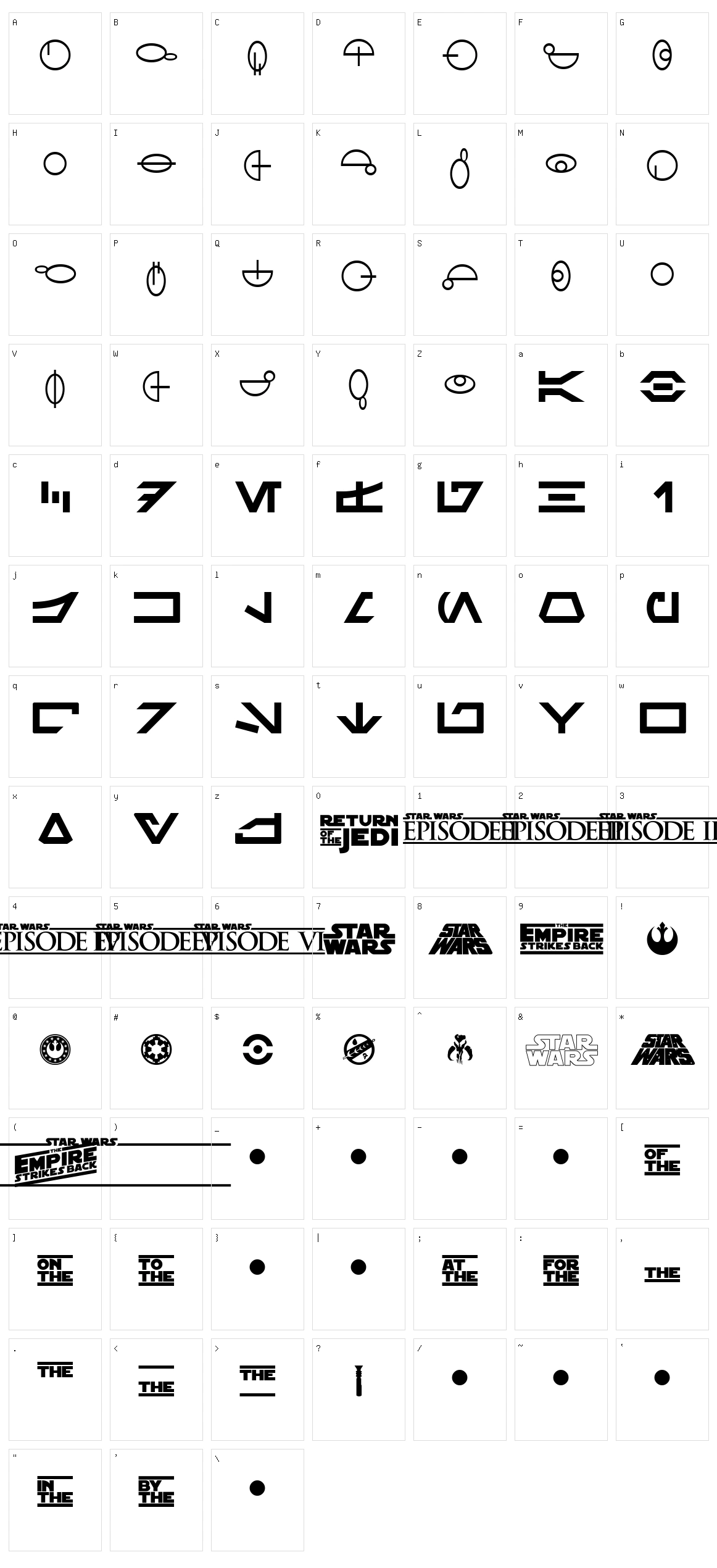
SF Distant Galaxy
- SF Distant Galaxy
- SF Distant Galaxy, Italic
- SF Distant Galaxy Alternate
- SF Distant Galaxy Alternate, Italic
- SF Distant Galaxy AltOutline
- SF Distant Galaxy AltOutline, Italic
- SF Distant Galaxy Outline
- SF Distant Galaxy Outline, Italic
- SF Distant Galaxy Symbols
- SF Distant Galaxy Symbols, Italic
SF Distant Galaxy - Version 2.5 - Updates
- Includes complete character set (lowercase and uppercase letters,
numbers, punctuation, and accented characters.)
- Includes Aurebesh alphabet, Naboo symbols, and various Star Wars
logos and insignias.
- Completely redesigned characters with improved spacing and kerning.
- Connecting Letters
- To connect any two characters use SF Distant Galaxy Alternate or
SF Distant Galaxy AltOutline. The first letter to be connected
should be a lowercase and the second should be an uppercase. For
example, type the following line using either SF Distant Galaxy or
SF Distant Galaxy AltOutline:
sTaR wArS
(note: SF Distant Galaxy and SF Distant Galaxy Outline characters
do not connect and are designed to work in conjunction with SF
Distant Galaxy Alternate and SF Distant Galaxy AltOutline)
- Adding Extensions Using SF Distant Galaxy Alternate
- To add extensions using SF Distant Galaxy Alternate, press < for
bottom extensions and > for top extensions. For example, type the
following line using SF Distant Galaxy Alternate:
>>TiE fIgHtEr<<
(note: SF Distant Galaxy does not have extensions)
- Adding Extensions Using SF Distant Galaxy AltOutline
- To add extensions using SF Distant Galaxy AltOutline, press < for
an open bottom extension, > for an open top extension, [ for a
closed bottom right extension, ] for a closed bottom left
extension, { for a closed top right extension, and } for a closed
top left extension. For example, type the following line using SF
Distant Galaxy AltOutline:
{>>TiE fIgHtEr<<]
(note: SF Distant Galaxy Outline does not have extensions)
- Adding Star Wars Title Bar
- To add a Star Wars title bar using SF Distant Galaxy Symbols,
press $ in the middle of any word or phrase. For example, type
the following line using SF Distant Galaxy Symbols:
aure$besh
- SF Distant Galaxy Alternate
- Bottom Extension ------------------------- press <
- Top Extension ---------------------------- press >
- SF Distant Galaxy AltOutline
- Open Bottom Extension -------------------- press <
- Open Top Extension ----------------------- press >
- Closed Bottom Right Extension ------------ press [
- Closed Bottom Left Extension ------------- press ]
- Closed Top Right Extension --------------- press {
- Closed Top Left Extension ---------------- press }
- SF Distant Galaxy Symbols
- Aurebesh Alphabet ------------------------ press a-z
- Naboo Symbols ---------------------------- press A-Z
- Generic Episode 1-6 Logos ---------------- press 1-6
- Star Wars Logo #1 ------------------------ press 7
- Star Wars Logo #2 ------------------------ press &
- Star Wars Logo #3 ------------------------ press 8
- Star Wars Logo #4 ------------------------ press *
- Star Wars Title Bar ---------------------- press )
- The Empire Strikes Back Logo #1 ---------- press 9
- The Empire Strikes Back Logo #2 ---------- press (
- Return of the Jedi Logo ------------------ press 0
- Rebel Alliance Insignia ------------------ press !
- New Republic Insignia -------------------- press @
- Imperial Insignia ------------------------ press #